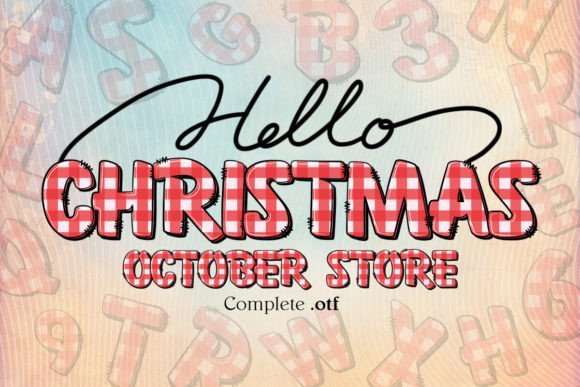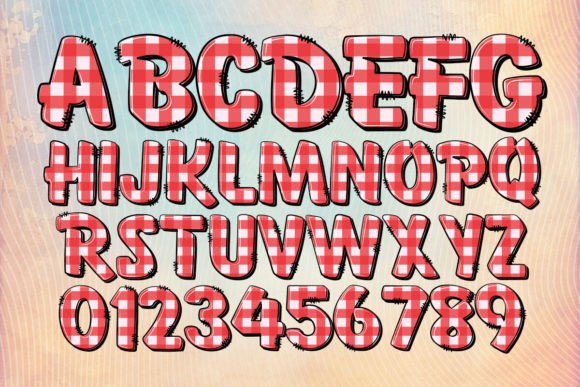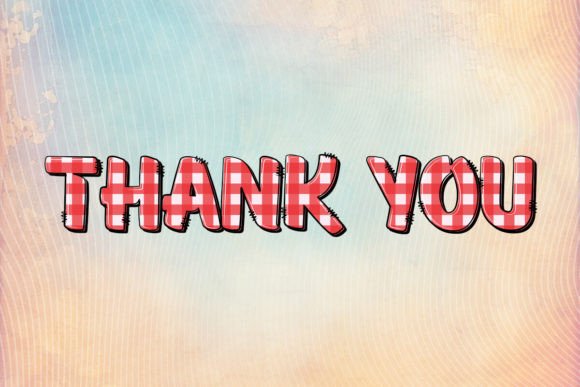
A Season of Creative Joy: Unwrapping the Magic of Christmas Font
As the holiday season approaches, the creative itch to make something special for loved ones kicks in. You’re scrolling through Pinterest, browsing through crafting blogs, and saving ideas left and right. And then, it hits you – the perfect project: a handmade card or gift tag that exudes warmth and love. But, the key to making it truly special lies in the right font. That’s where Christmas Font comes in – a captivating typeface inspired by classic holiday textiles.
This enchanting font is designed to transport you to a world of cozy holiday cheer, perfect for crafting heart-warming messages, season’s greetings, or stocking stuffer tags. Whether you’re a seasoned designer or a crafty enthusiast, Christmas Font is a valuable addition to your toolkit, allowing you to infuse your creations with a sense of love and tradition. With its seamless blend of classic and contemporary design elements, this font is sure to delight and inspire.
Key Features of Christmas Font
- Unique Characteristics: The Christmas Font features a unique, hand-drawn design with a festive and playful feel, perfect for holiday-themed projects and designs.
- Character Set: The font includes a wide range of characters, including uppercase and lowercase letters, numbers, punctuation marks, and special characters, making it suitable for a variety of design applications.
Christmas Font Review
First off, let me say that I was excited to dive into the Christmas Font and see what it had to offer. The first thing that caught my eye was the wide range of festive characters ✨. The font includes a plethora of fun and creative symbols, from snowflakes to holly leaves, that are perfect for adding a touch of holiday cheer to any design. The characters are also well-designed and look great when used in a variety of contexts.
Another thing that stands out about the Christmas Font is its versatility ✨. The font is available in a range of styles, from bold and playful to elegant and sophisticated, making it easy to find a look that fits your design needs. I also appreciated the clear and concise documentation that comes with the font, which made it easy to get started with my project.
- ⚠️ The font may be too flashy for some designs, so be sure to use it sparingly to avoid overwhelming your audience.
- ⚠️ Some of the characters may not display properly in certain font sizes or styles, so be sure to test your design thoroughly.
Overall, I would say that the Christmas Font is a solid choice for anyone looking to add a festive touch to their designs. While it may have some limitations, the font’s versatility and wide range of characters make it a great option for designers of all levels.
Use Christmas font to create festive invitations, greeting cards, and social media posts.
Experiment with different font sizes, colors, and styles to create a unique and eye-catching design.
Combine Christmas font with other festive elements, such as snowflakes, holly, or candy canes, to create a cohesive and festive design.
Alternatives to Christmas Font for Designers
Great Vibes is a modern, elegant script font that evokes a sense of luxury and sophistication. It’s ideal for use in high-end branding, wedding invitations, and other special occasions. Compared to Christmas Font, Great Vibes has a more refined and less playful feel.
Carolyna Pro is a beautiful, handwritten font with a whimsical touch. It’s perfect for use in creative projects, such as holiday cards, gift tags, and social media graphics. While it shares some similarities with Christmas Font in terms of its festive feel, Carolyna Pro has a more delicate and intricate design.